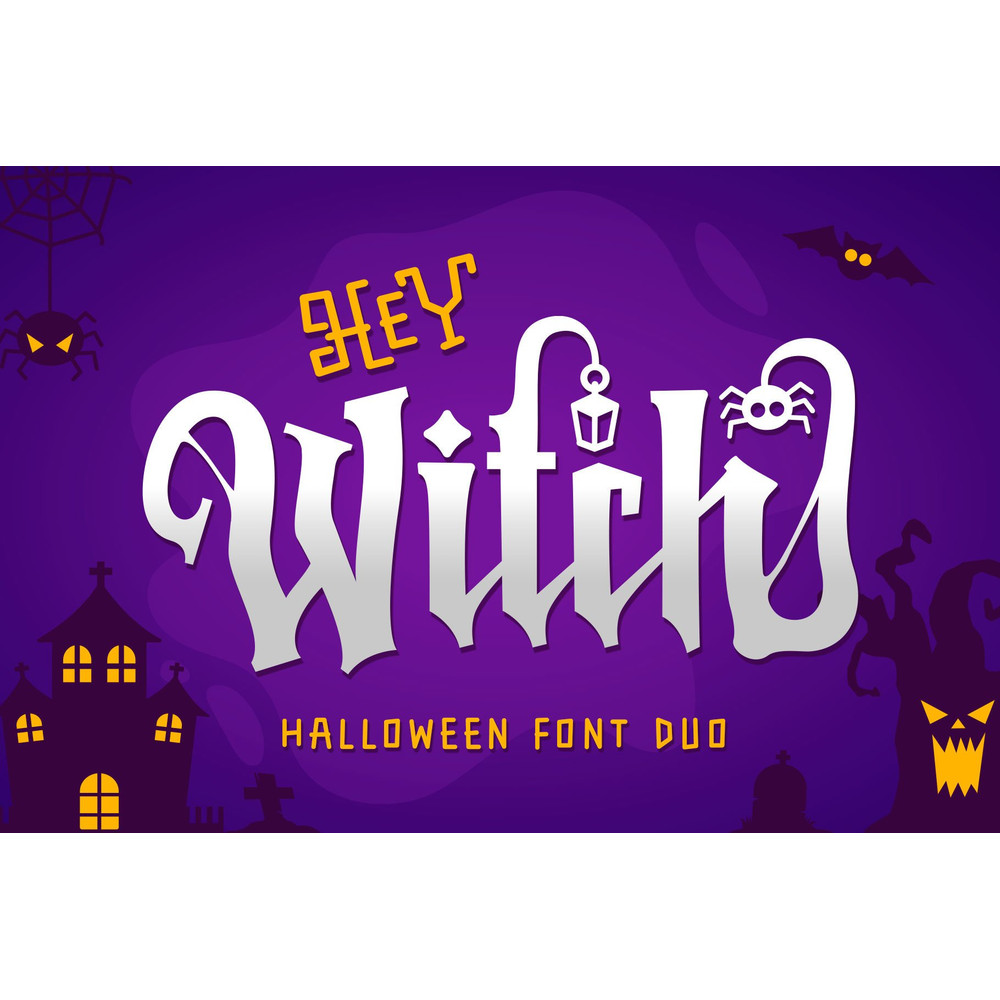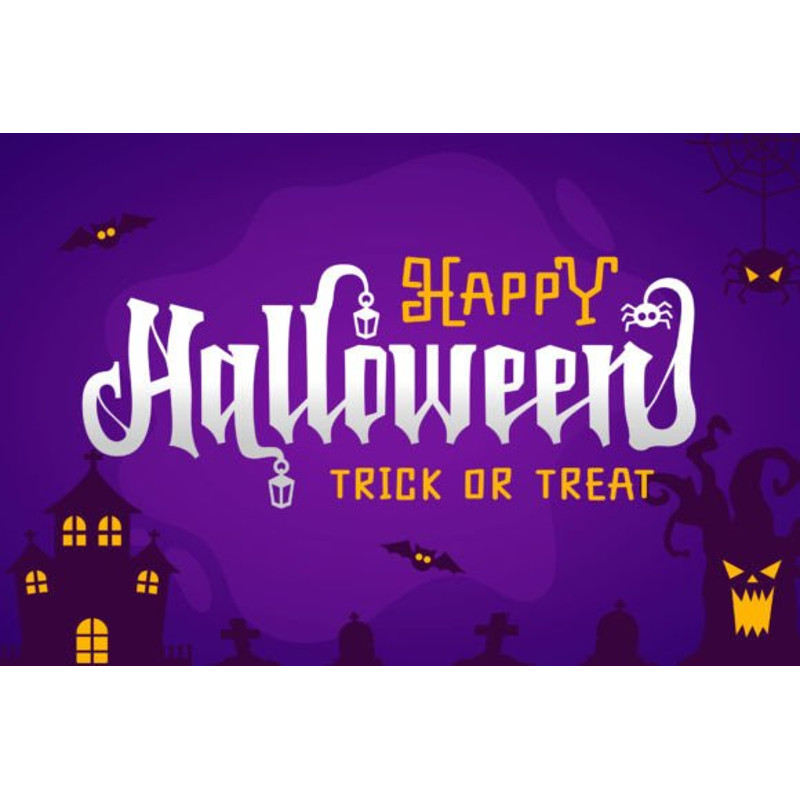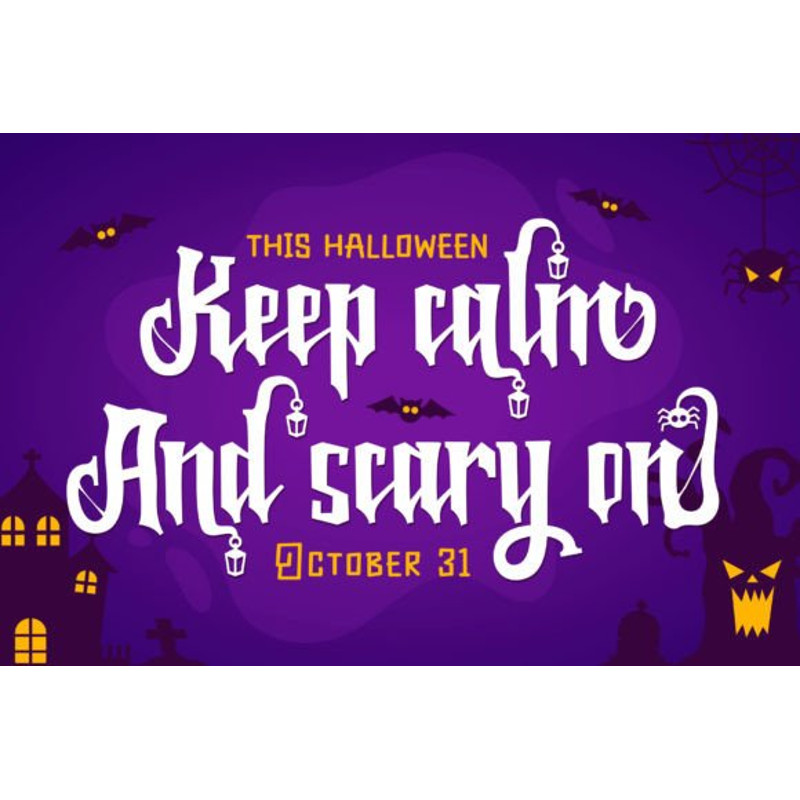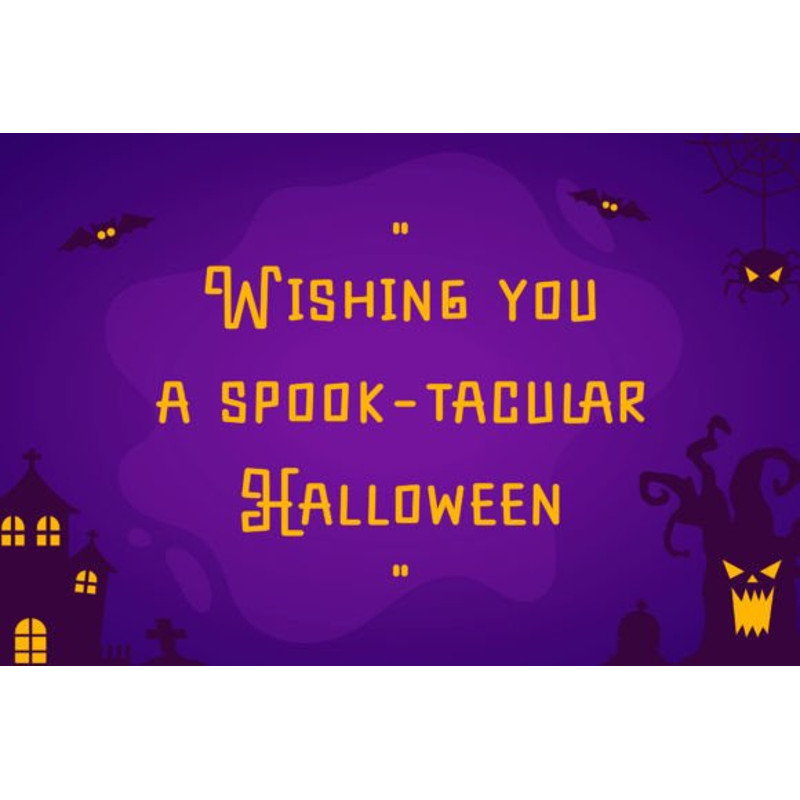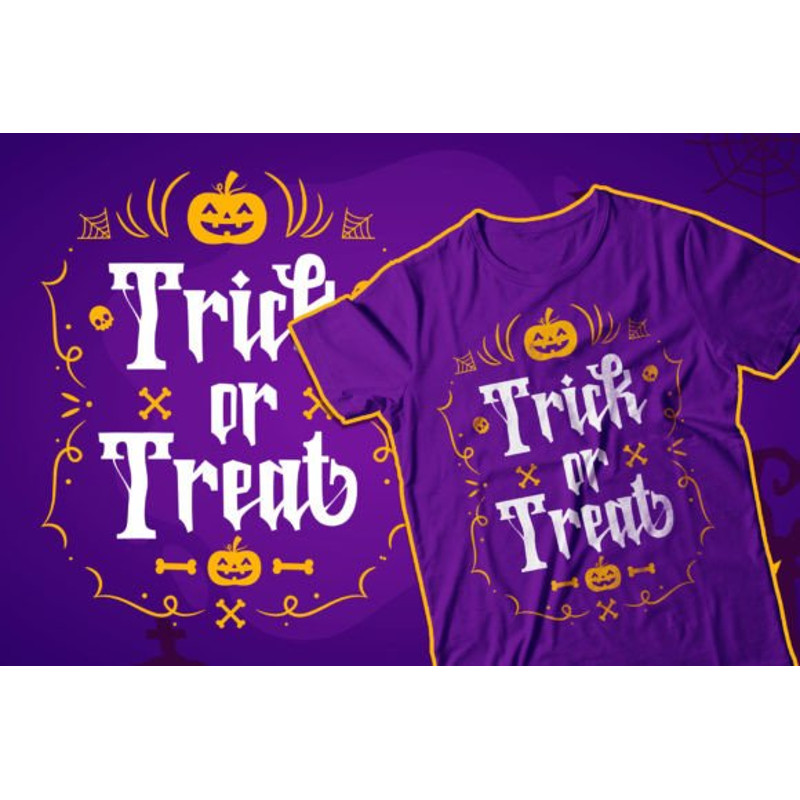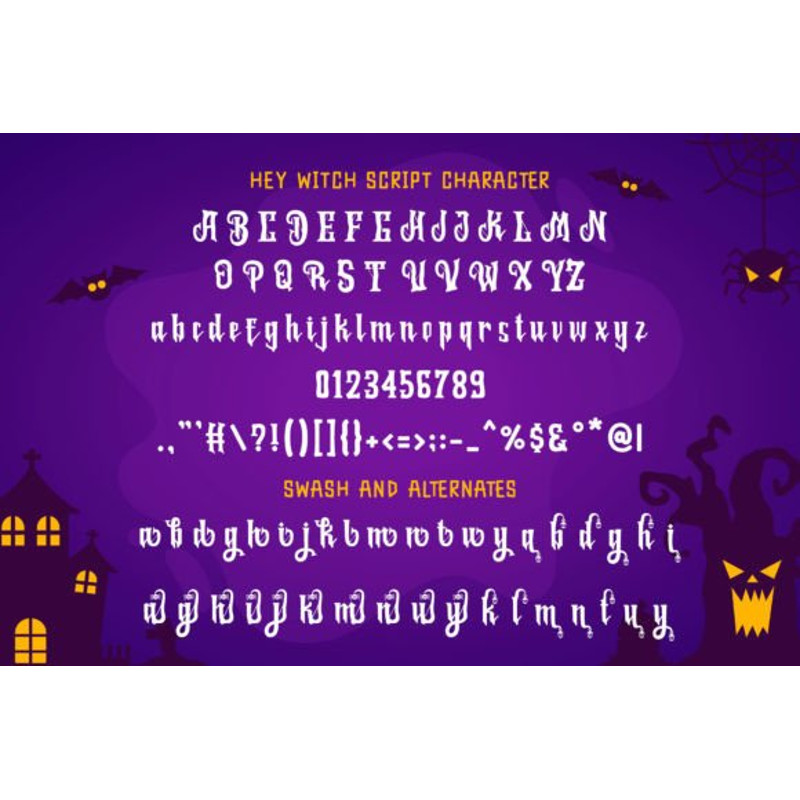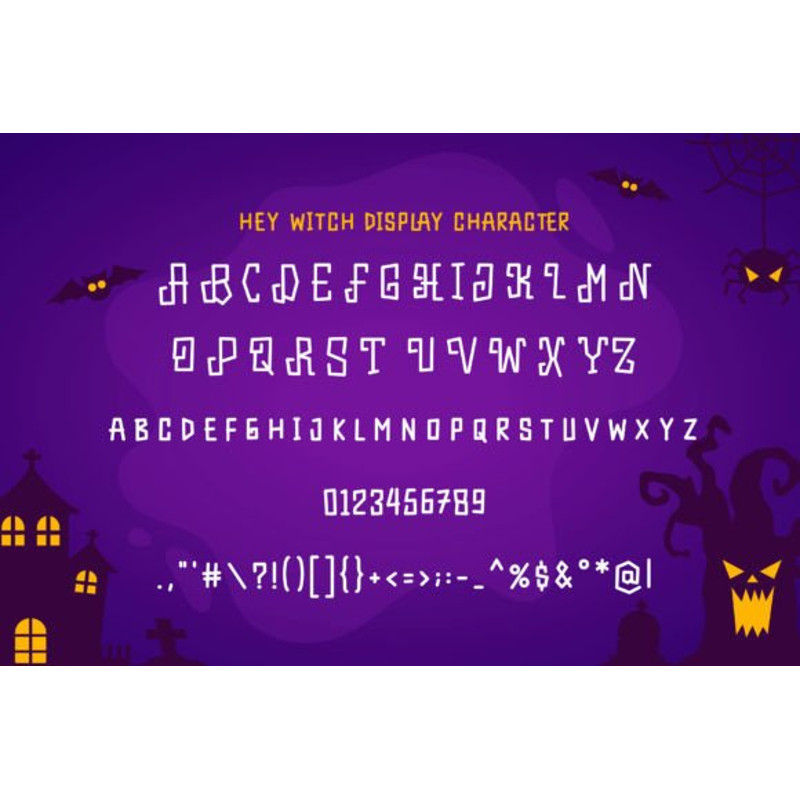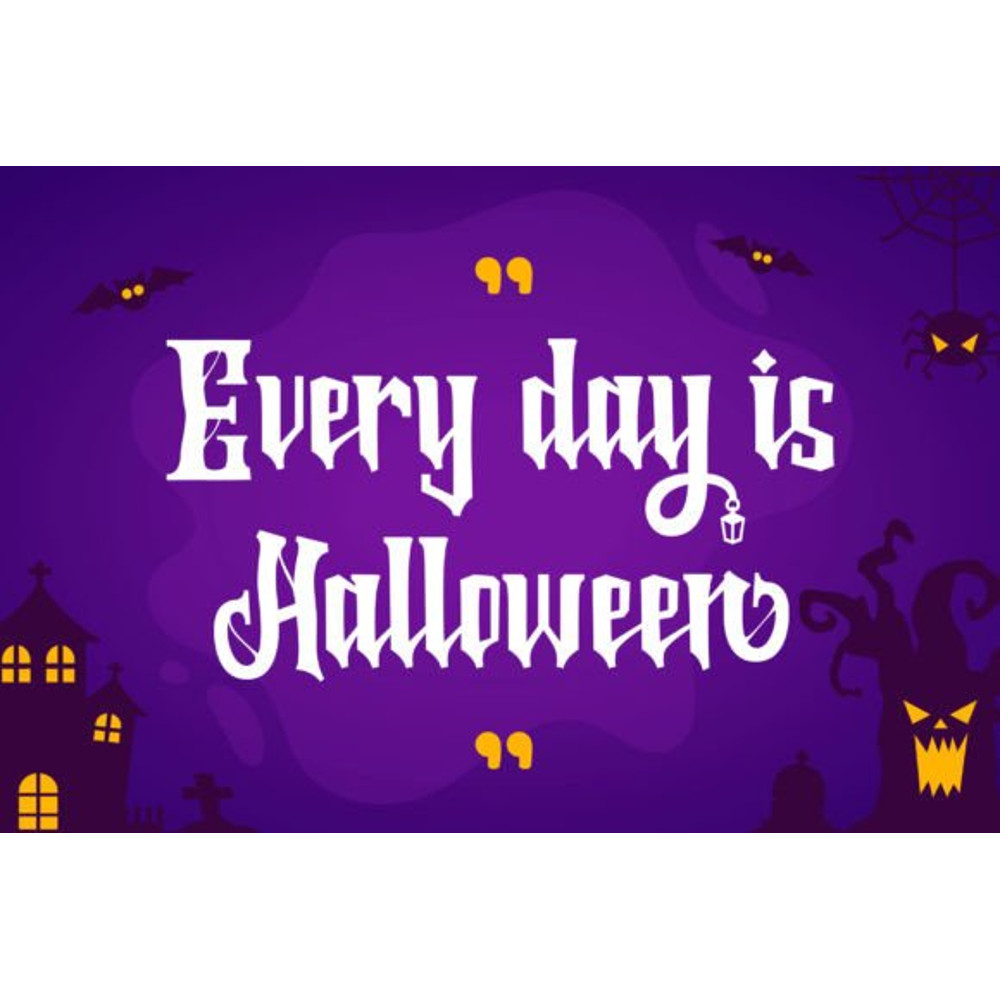
Hey Witch Font
Hey Witch is a unique duo font (script and display) with a scary and cute decorative Halloween theme. Hey Witch is a fresh and unique typeface suitable for Halloween-themed design purposes such as t-shirts, books, posters, and more. This font is PUA encoded, which means you can access all of the glyphs and swashes with ease!
Hey Witch Font
Hey Witch is a unique duo font (script and display) with a scary and cute decorative Halloween theme. Hey Witch is a fresh and unique typeface suitable for Halloween-themed design purposes such as t-shirts, books, posters, and more. This font is PUA encoded, which means you can access all of the glyphs and swashes with ease!